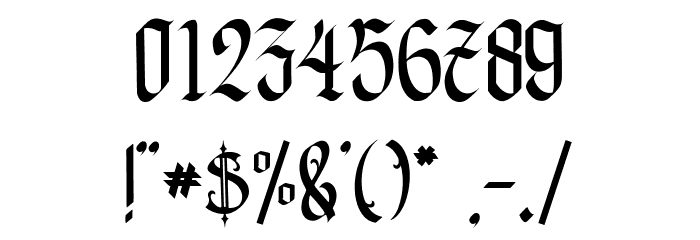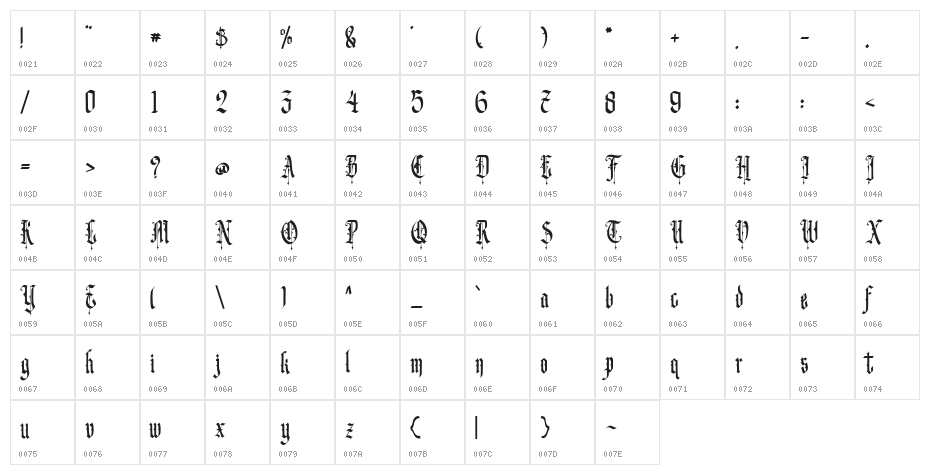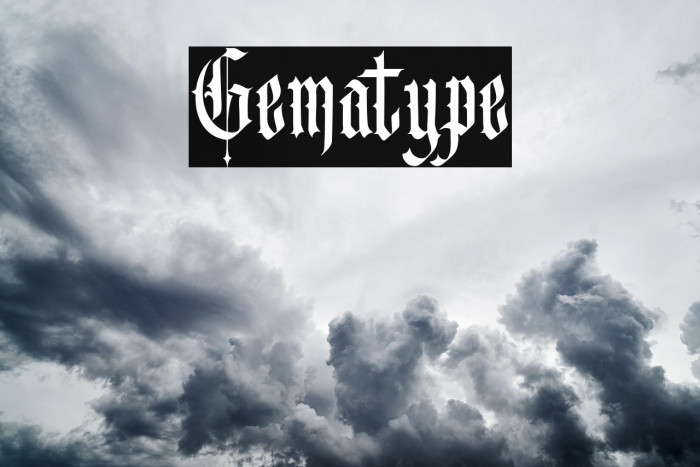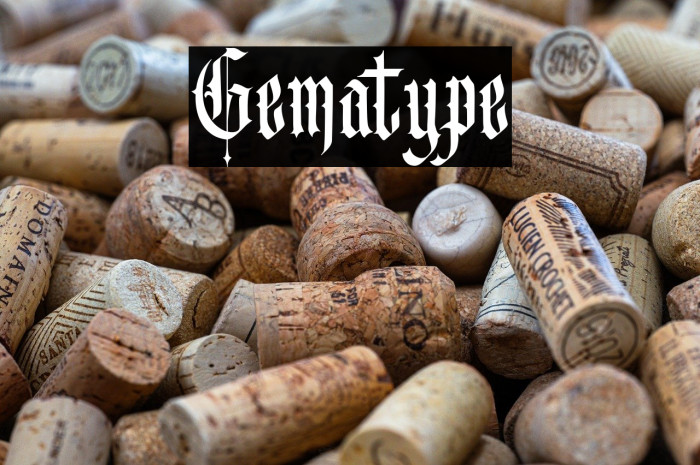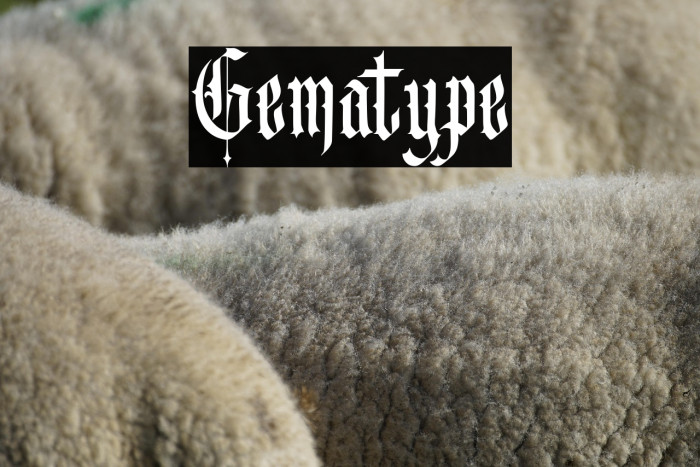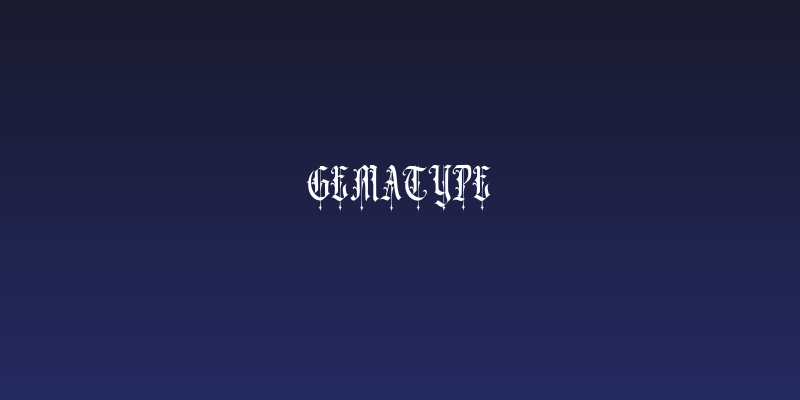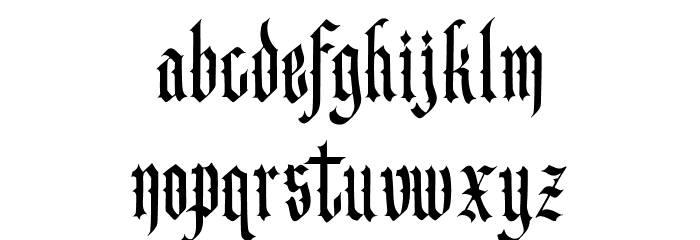
Gematype Font
Gematype Description
This font exhibits a classic Blackletter style, characterized by its ornate and intricate design. The uppercase letters are tall and narrow, featuring sharp, angular lines and decorative elements that give a sense of historical elegance. The lowercase letters maintain a consistent style, with a slightly more condensed appearance, enhancing readability while preserving the traditional aesthetic. The numbers are bold and consistent with the overall theme, providing a cohesive look. Special characters are designed with the same attention to detail, ensuring they blend seamlessly with the rest of the font. This font is ideal for projects that require a touch of vintage sophistication and historical depth.
| Proposed Projects | Ideal for historical documents, invitations, certificates, and branding that requires a classic touch. |